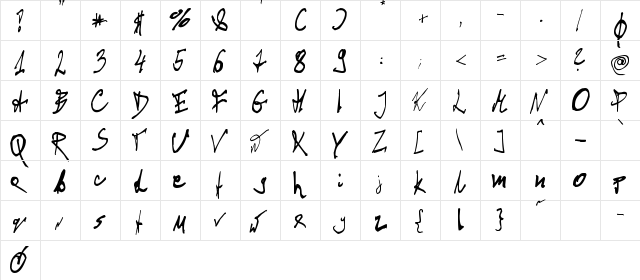
Qlfones Regular
Design Context for Qlfones Typeface
Qlfones is a composed and adaptable typeface that performs quietly and consistently across a wide range of design contexts.